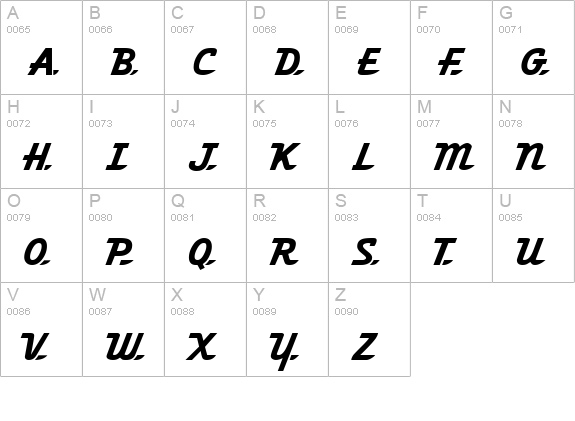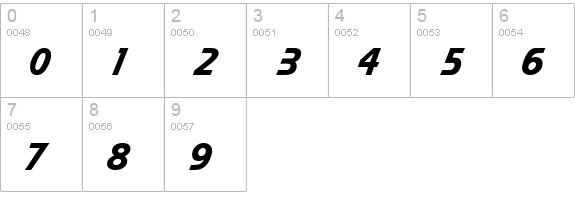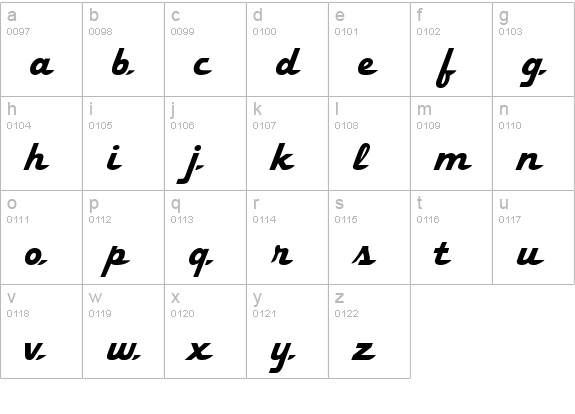
Fleeting MF Font Details
Fleeting MF font is a modern and stylish typeface that exudes elegance and sophistication. Its sleek lines and unique design make it perfect for a wide range of projects, from branding to editorial design. The font features a delicate balance between modernity and classic elegance, making it versatile and eye-catching. What sets Fleeting MF font apart is its ability to convey a sense of fleeting beauty and transience, capturing the essence of the fleeting moments in life. The font's flowing curves and graceful strokes evoke a sense of movement and fluidity, adding a touch of dynamism to any design. Fleeting MF font is a must-have for designers looking to add a touch of sophistication and style to their projects. Whether you're working on a logo, a poster, or a website, this font is sure to make a statement and leave a lasting impression. Best of all, Fleeting MF font is available for free download at FontsMarket.com, making it easily accessible to designers and creatives everywhere. Don't miss out on the opportunity to elevate your designs with this elegant and versatile font. Download Fleeting MF font today and unleash your creativity!